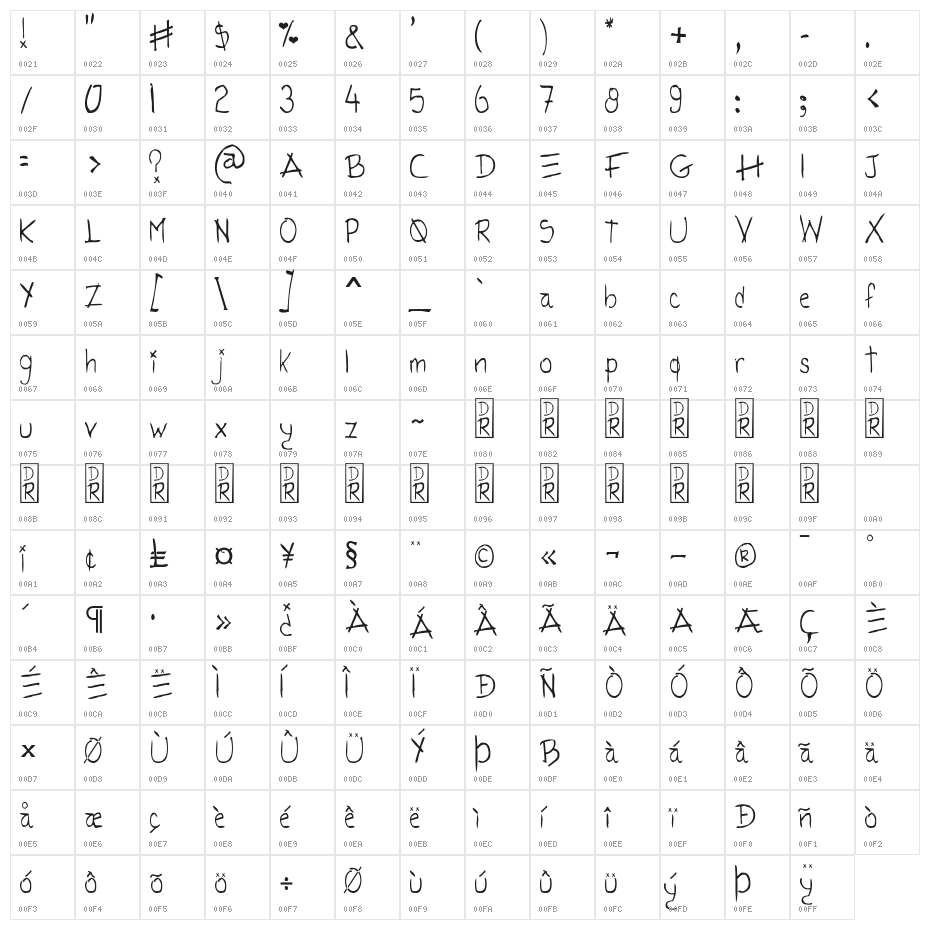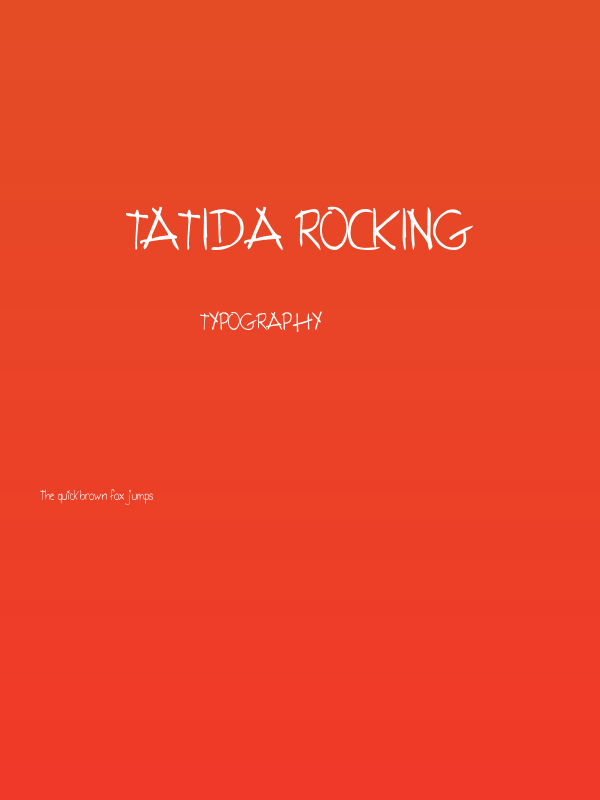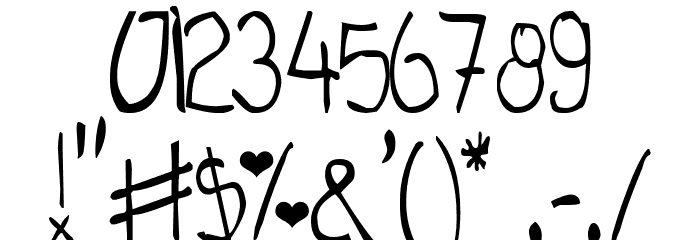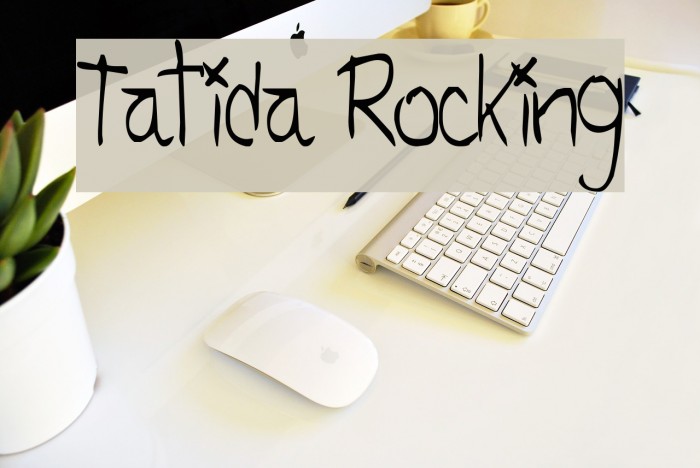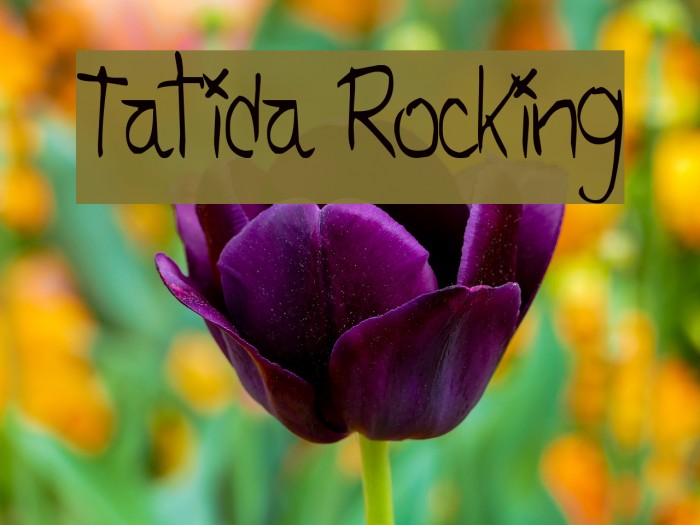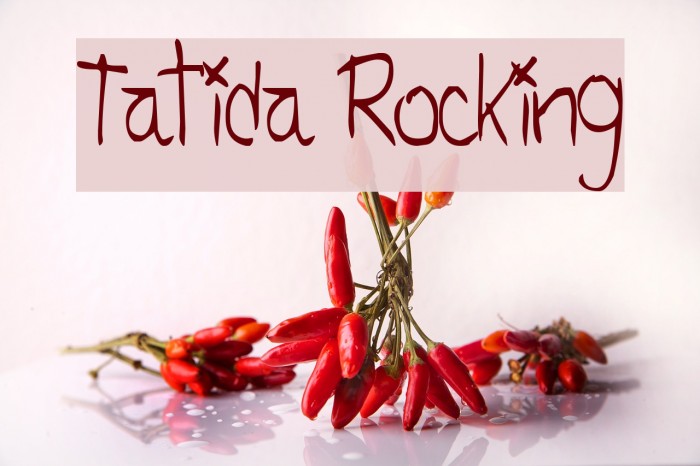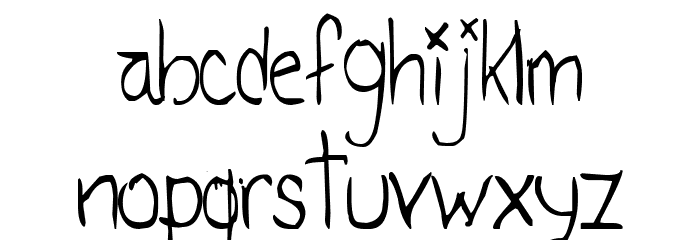
Tatida Rocking Font
Tatida Rocking Description
This font exhibits a playful and energetic style with its irregular, hand-drawn appearance. The characters are slightly tilted and vary in thickness, giving it a dynamic and informal look. The uppercase letters are bold and prominent, while the lowercase letters maintain a consistent flow with quirky, uneven strokes. The numbers and special characters follow the same lively design, making the font suitable for creative and casual contexts. Its unique style is reminiscent of handwritten notes or doodles, adding a personal touch to any project.
| Proposed Projects | Ideal for children's books, greeting cards, posters, and creative branding projects. |